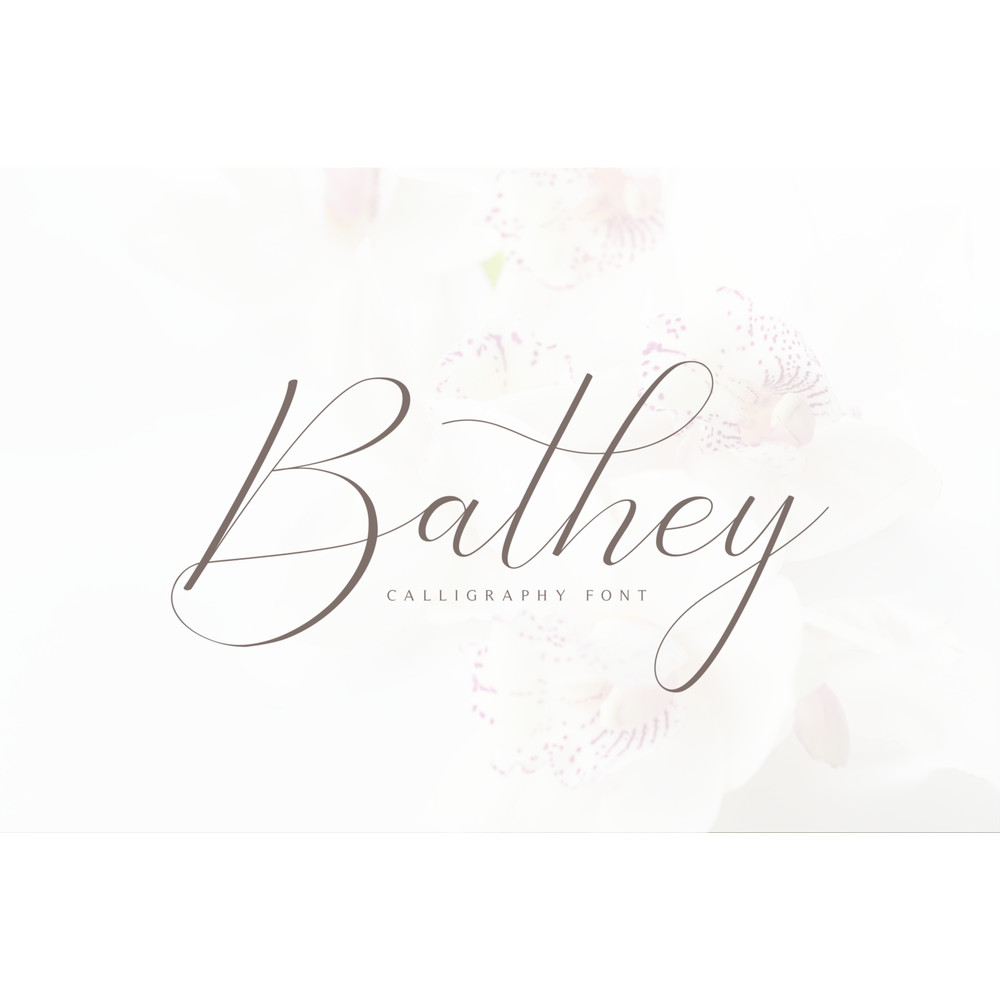
Modern touch fonts that are perfect for your needs. This font is equipped with uppercase letter, lowercase letter, punctuation, number, beautiful alternate, elegant ligature and multilingual support. This font is perfect for logo design / branding, watermark photos, product packaging, and much more.
– Bathey calligraphy includes capital and lowercase letters, and beautiful alternates.